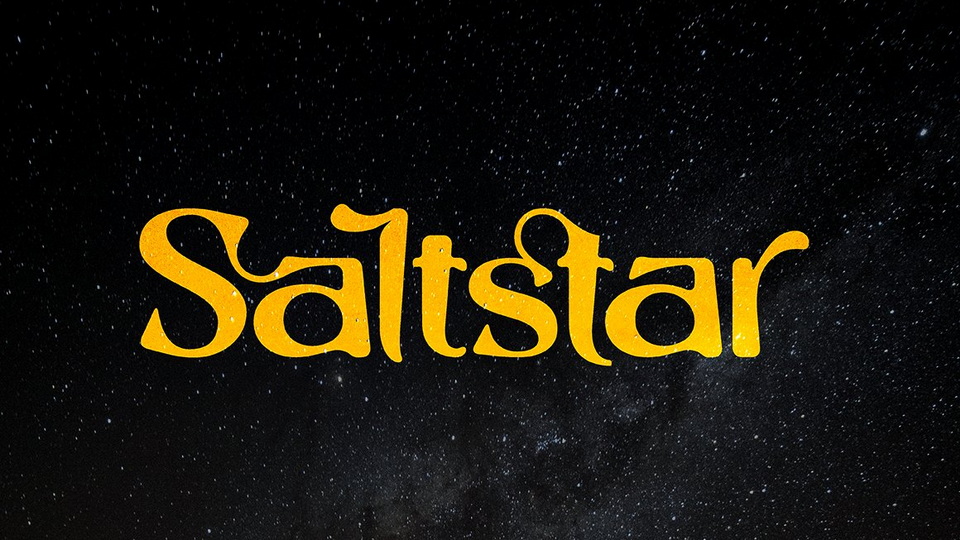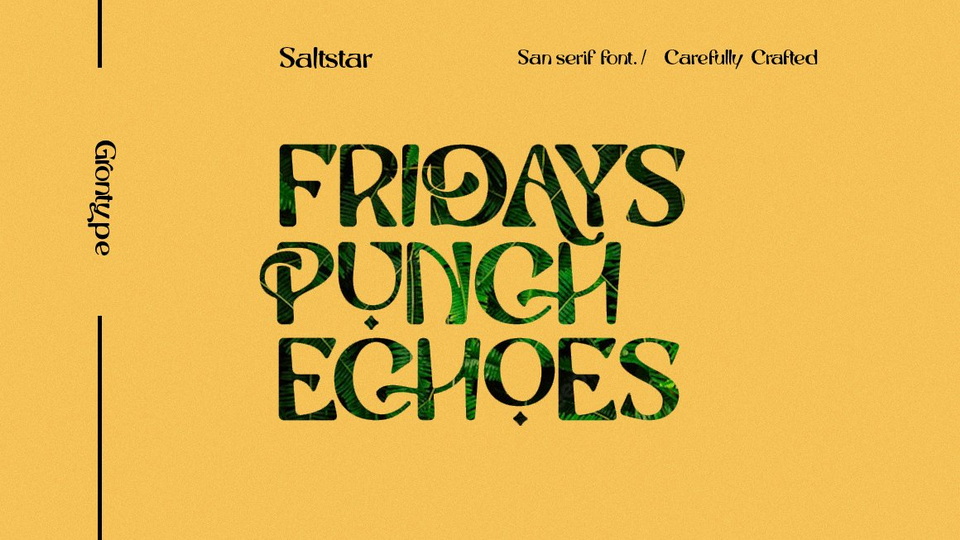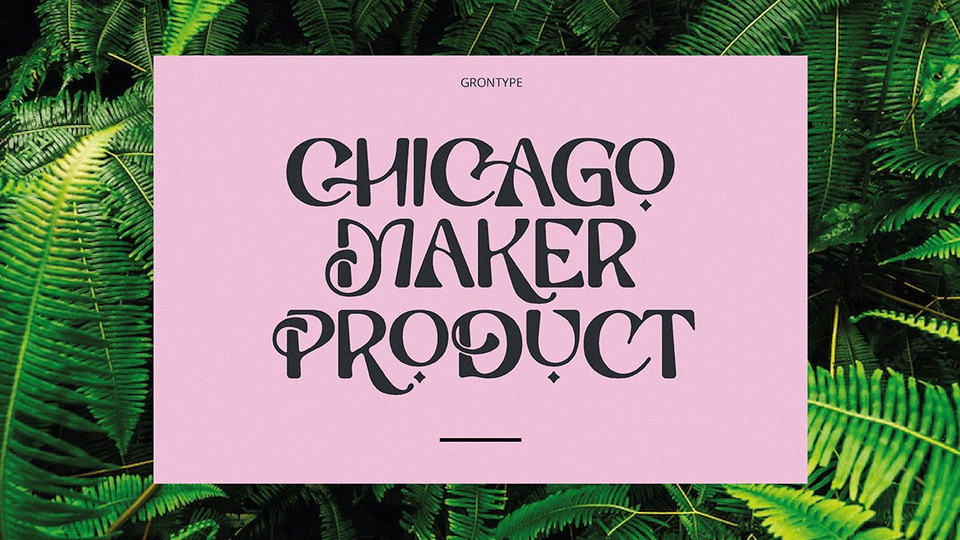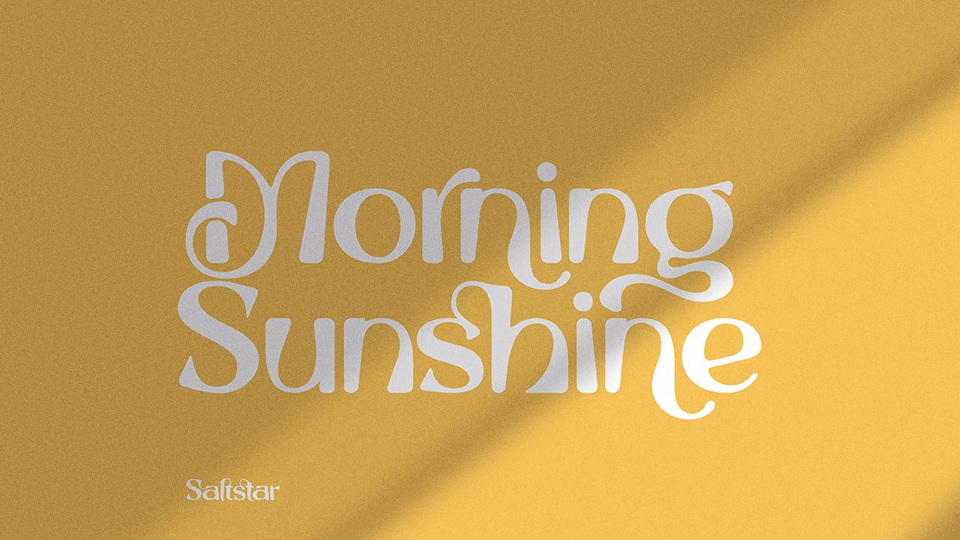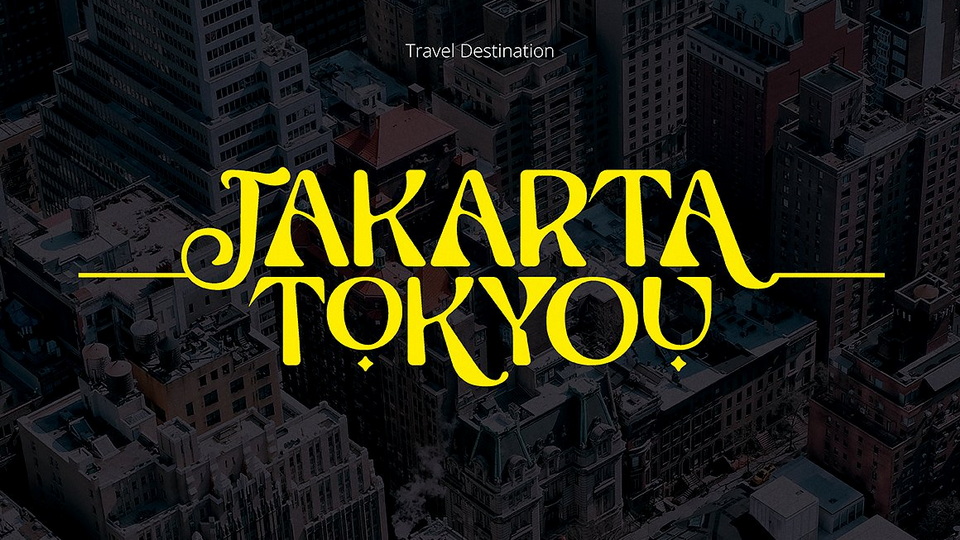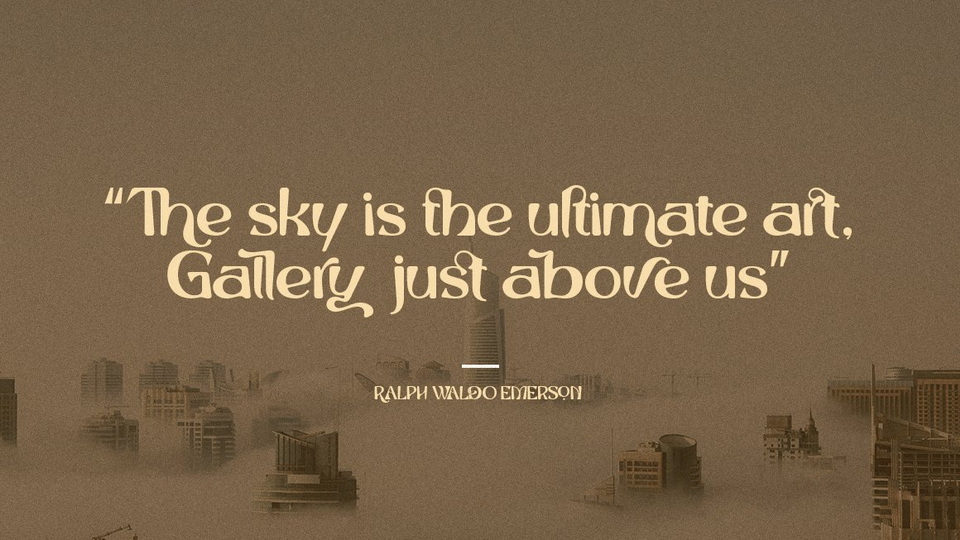
Saltstar is a modern elegant sans serif font created with care. The font is a rounded point and has unique shapes. It comes with extra ligatures and alternatives.
Saltstar font is specially created for your branding need such as invitational cards, flyer font, magazine heading layout, and any other project.